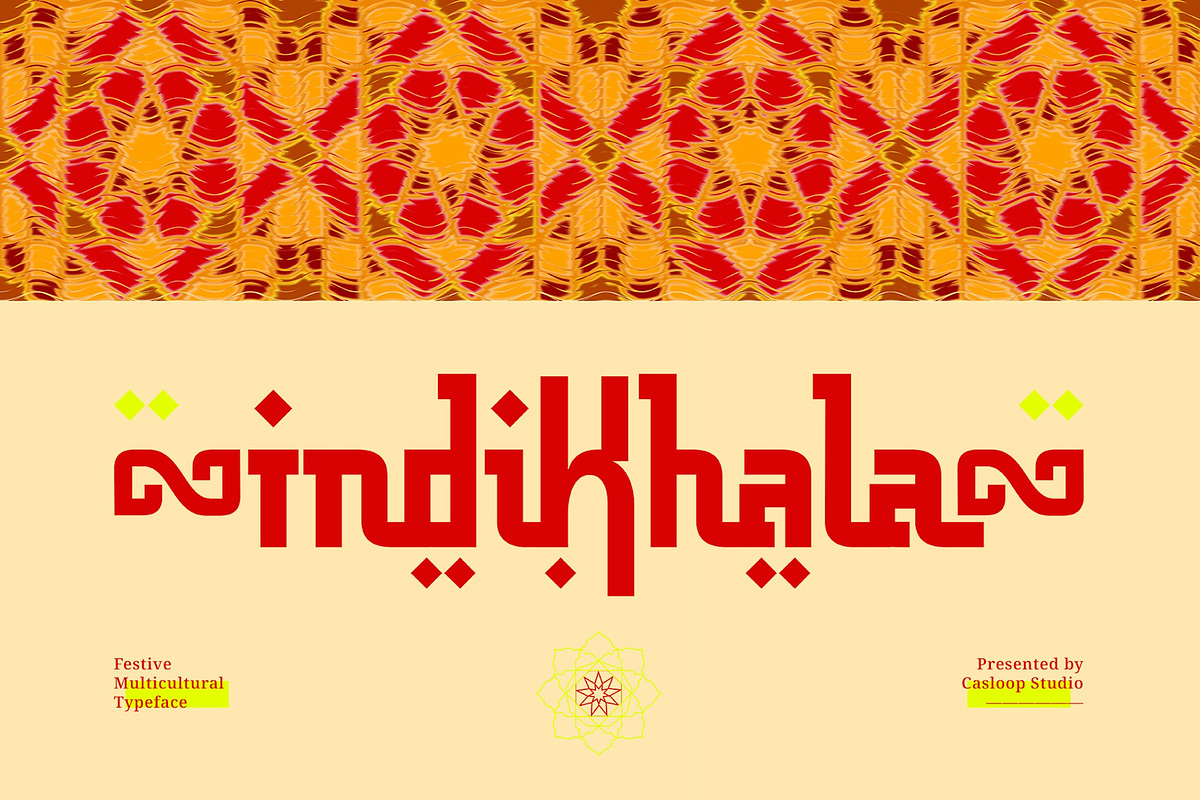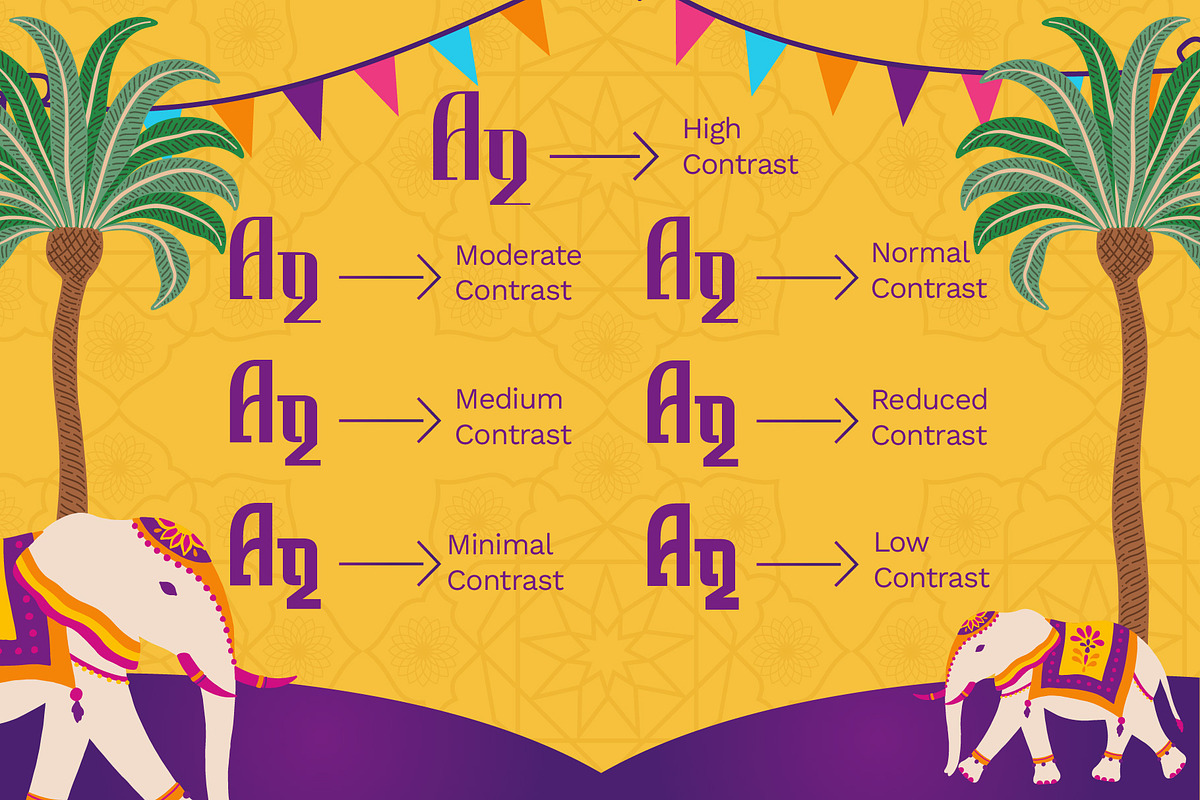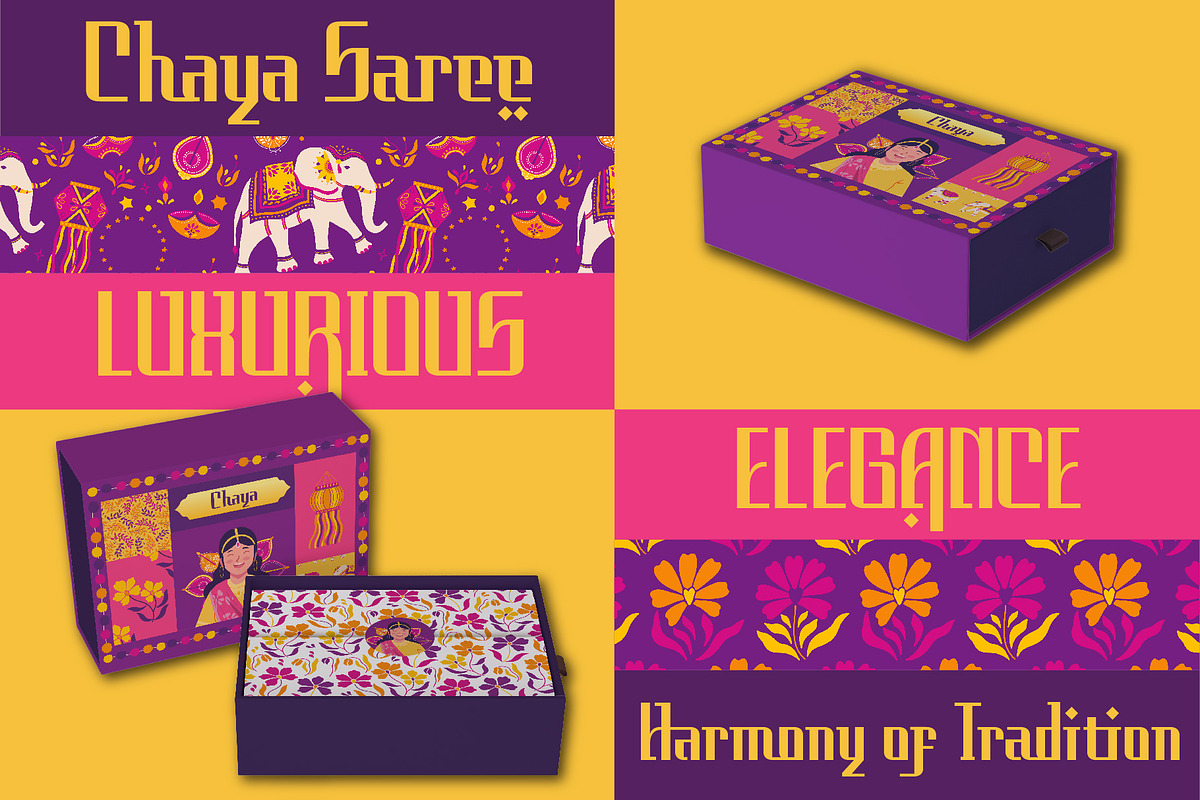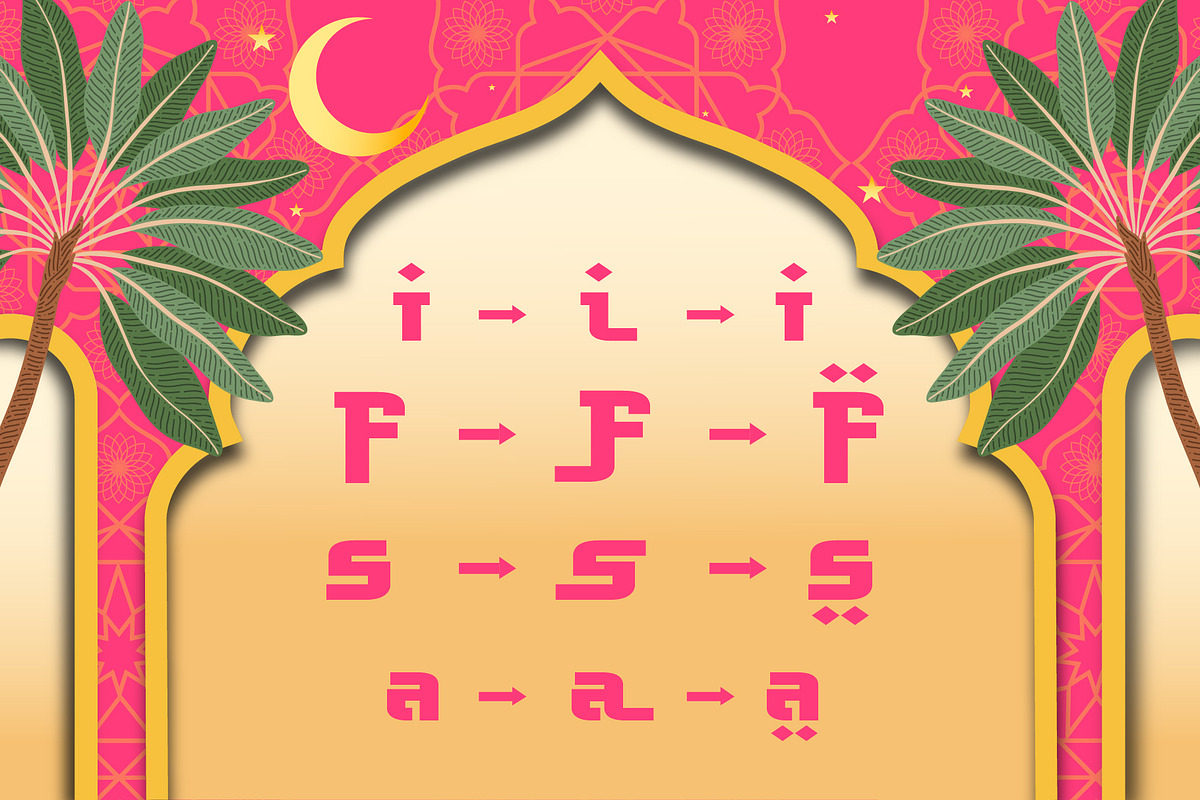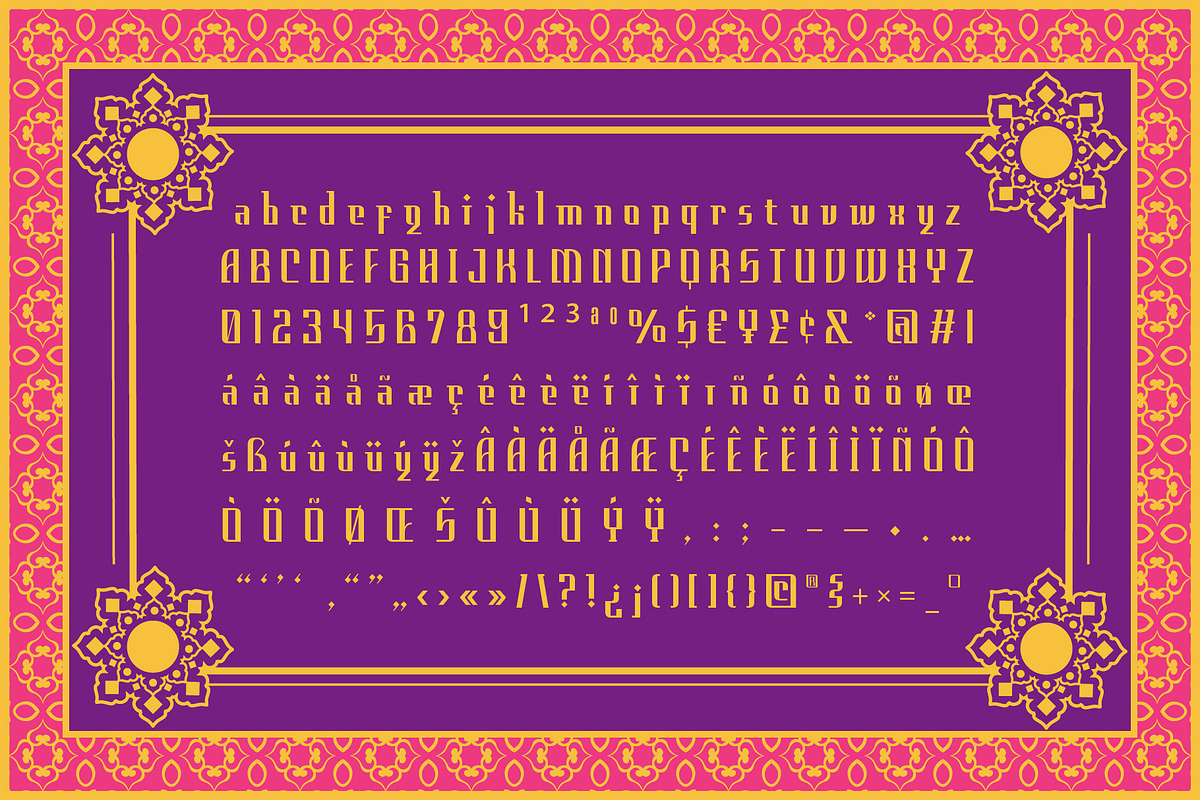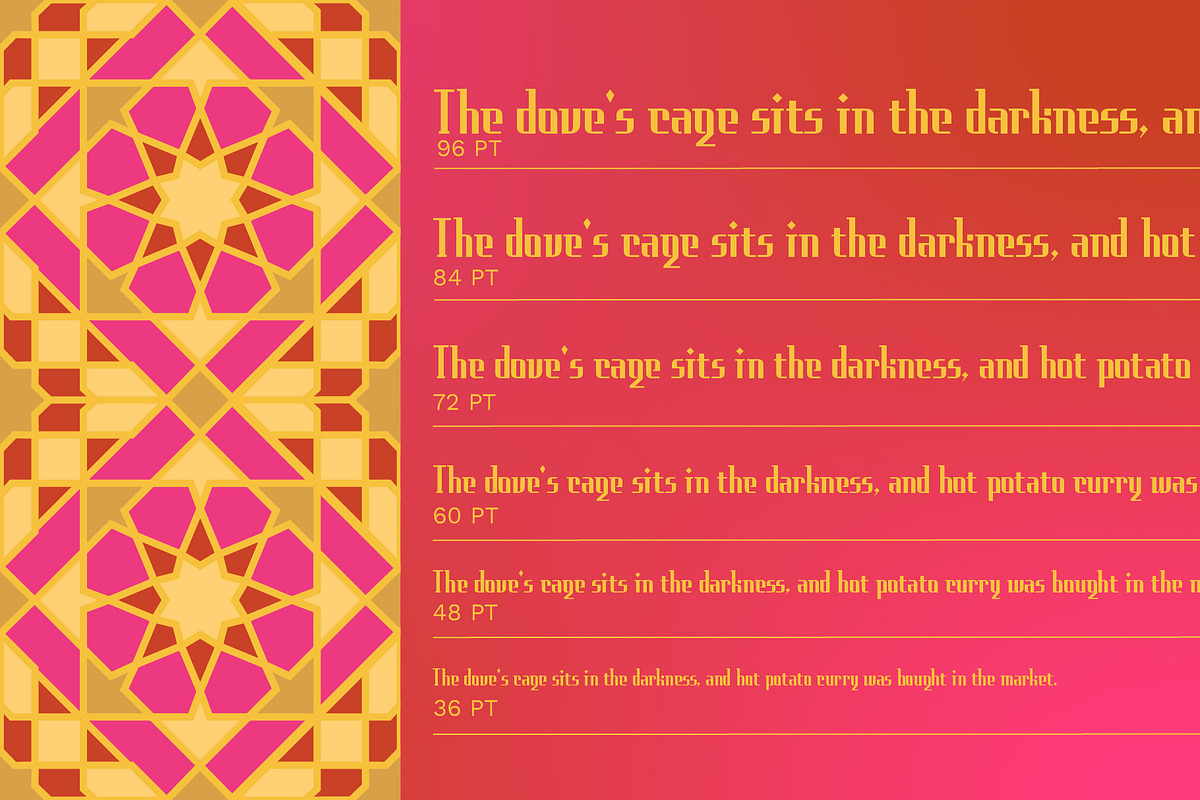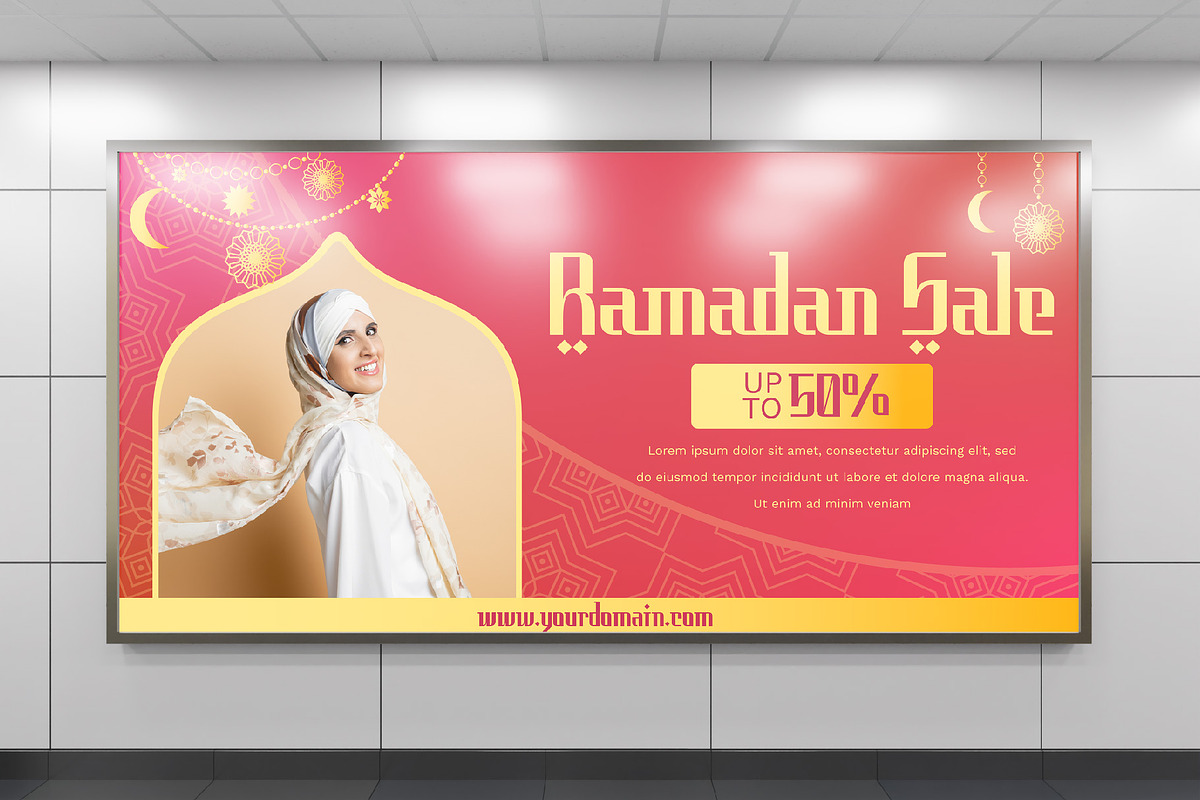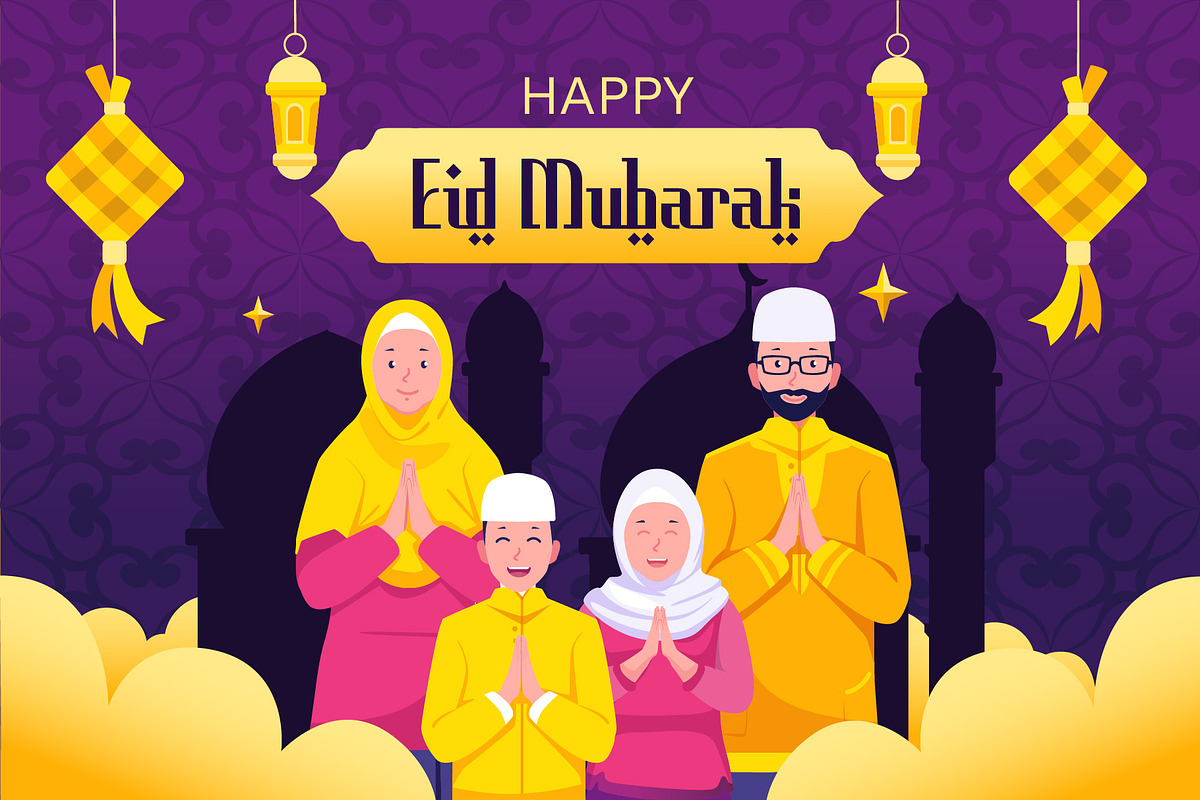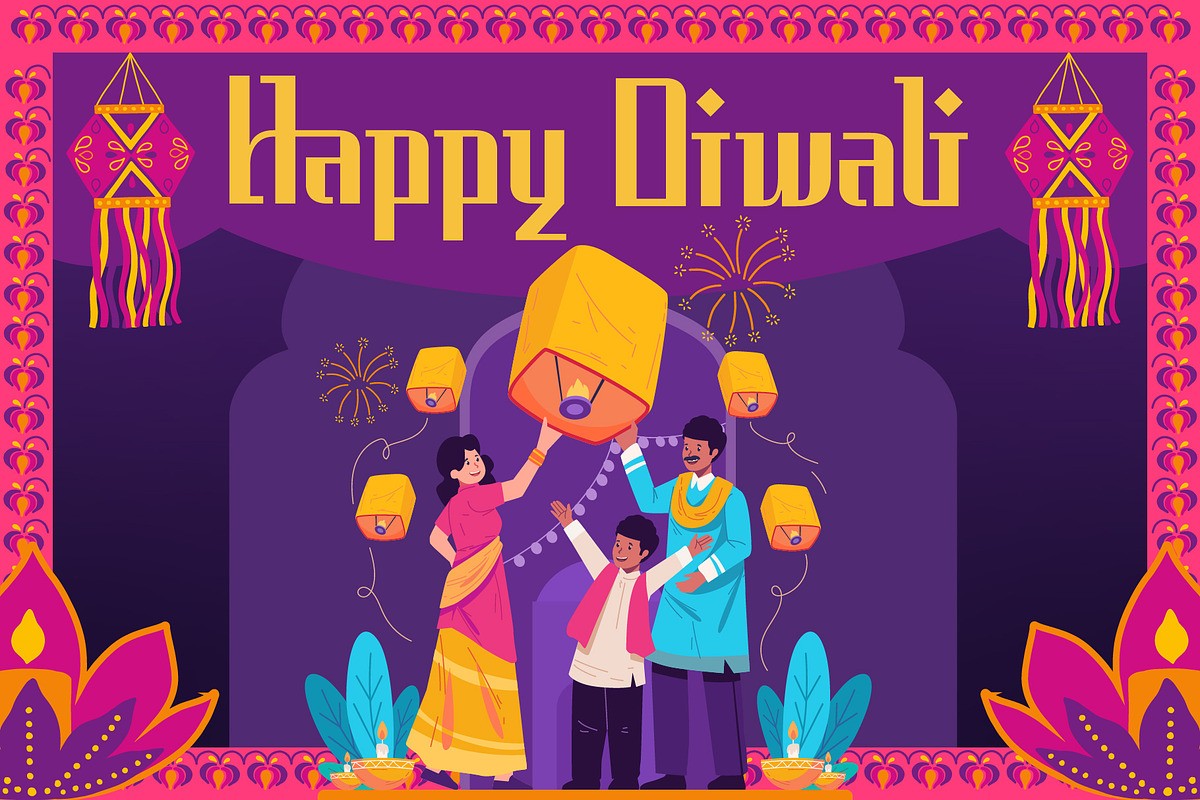
Indikhala Multi-Cultural 7 Fonts
Introducing Indikhala: Celebrate Ramadhan with Blazing Colors and Traditions!
Indikhala, a festive and multicultural Middle East inspired font, brings the luminous and gentle essence of Ramadhan Kareem to your designs. Its unique monoline style, combined with contrasting weights, captures the eccentric and quirky spirit of the celebration. Ornate and decorative, Indikhala adds an artistic and expressive touch to websites, packaging, logos, posters, and social media posts, making every project stand out with class and originality.
Experience the superiority of Indikhala's experimental design, crafted to make your designs stand out in the celebration of traditions. This font family, available in high to minimal contrast variants, embodies the festive mood with blazing colors. From Quranic verses to social media posts, Indikhala offers versatility, ensuring your projects radiate with the warmth of a bonfire and the richness of Indian fire.